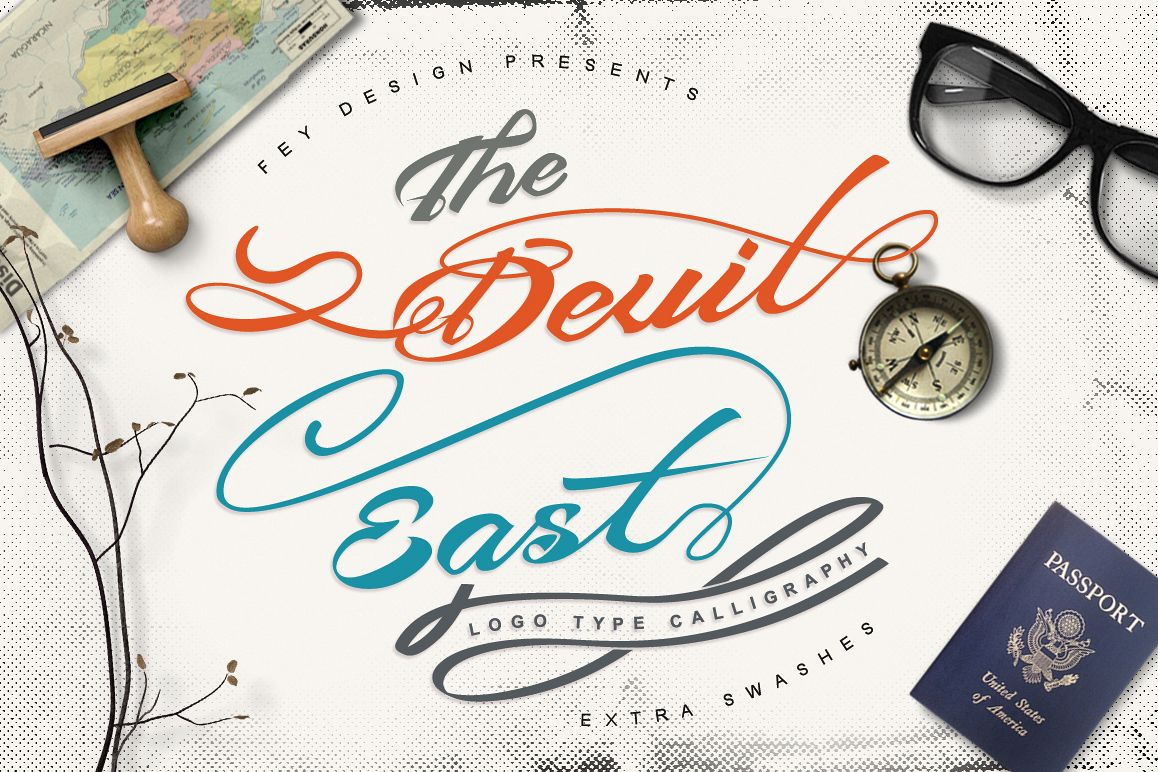
Devil East
Devil from the shadow, will kill you Extremely. East place at my live on my Hometown, there the darkness soul and Shine memories what I Remember!
This is Modern Vintage Calligraphy style, Suitable for design, element design, wedding, event, t-shirt, logo, badges, sticker, and awesome work, etc...
- Combination alternative ligature fonts
- Standard Ligatures, Stylistic Set, Multilanguage Characters
- Modern Calligraphy Typeface
- Unique style fonts